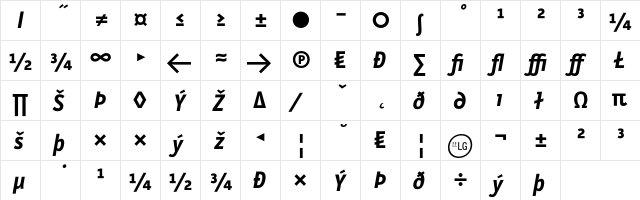
LetterGothicText BoldItalicExp
Design Context for LetterGothicText Typeface
LetterGothicText has the quiet confidence of well-executed sans-serif typography: versatile, unobtrusive, and dependable at any size. Its italic angle brings a sense of urgency and motion to the letterforms. Its bold stroke weight gives it real presence on the page.
A strong choice for UI design, app interfaces, bold signage, and corporate brand systems.
Font Pairing: Use LetterGothicText for headlines alongside a lighter-weight sans or serif for body copy to establish clear visual hierarchy.
Pro Tip: Pair LetterGothicText with a display or serif font for headlines — its neutral character makes it an excellent supporting player in complex typographic systems.